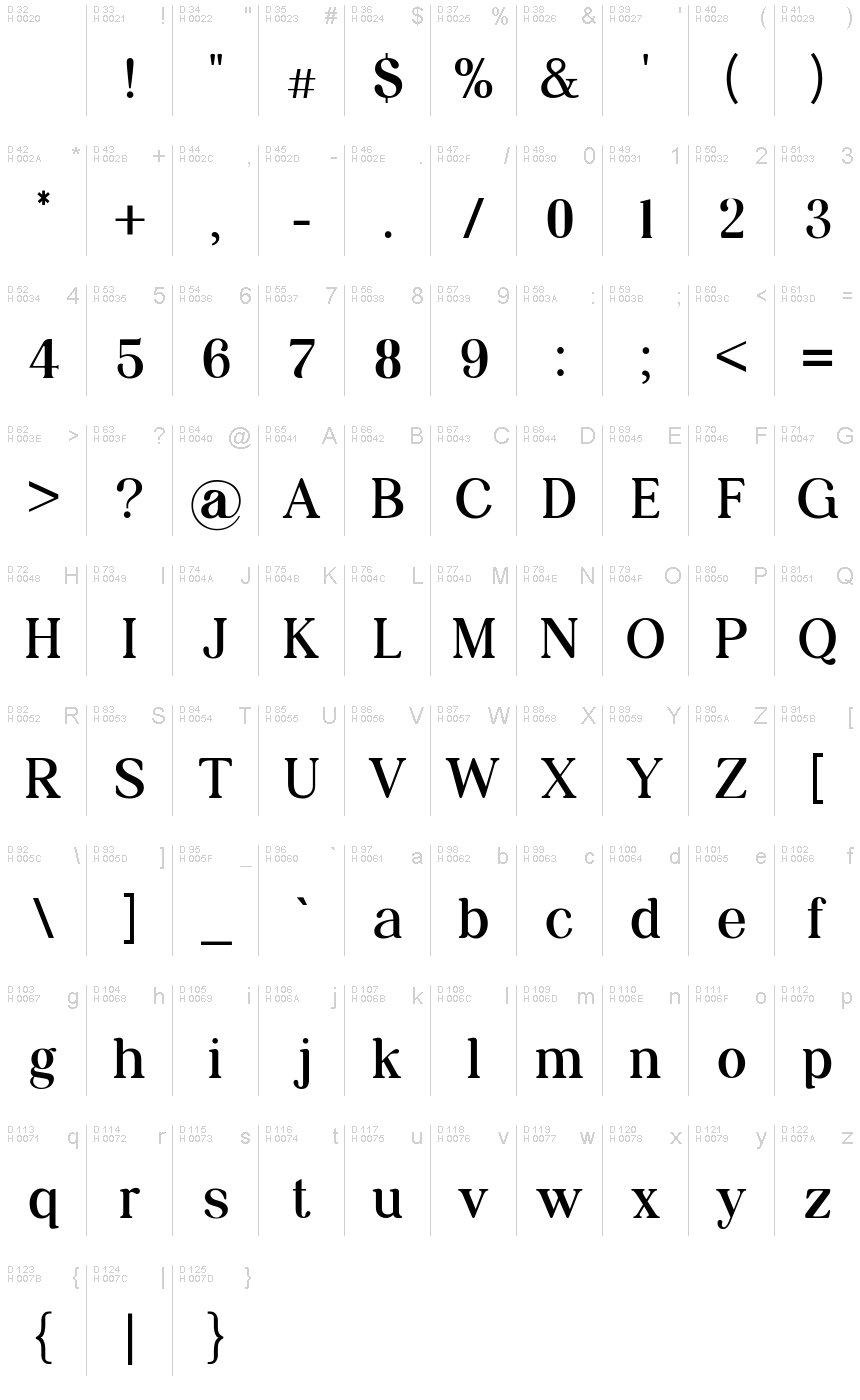
Preparatori Regular
Preparatori, a captivating serif font crafted by UI Creative, exudes a timeless elegance with its refined letterforms and striking balance. Meticulously designed, this font seamlessly blends traditional charm with a modern sensibility, creating a harmonious visual experience. Its distinctive serifs and balanced proportions lend a sense of sophistication, while the subtle variations in stroke thickness add depth and character to the typography.
The versatility of Preparatori makes it a compelling choice for a wide range of design applications. Its classic yet contemporary aesthetic lends itself beautifully to editorial layouts, book covers, and high-end branding projects, where a touch of refinement and timelessness is desired. Additionally, Preparatori's readability and elegant personality make it a versatile option for both digital and print mediums, ensuring a cohesive visual identity across various touchpoints.